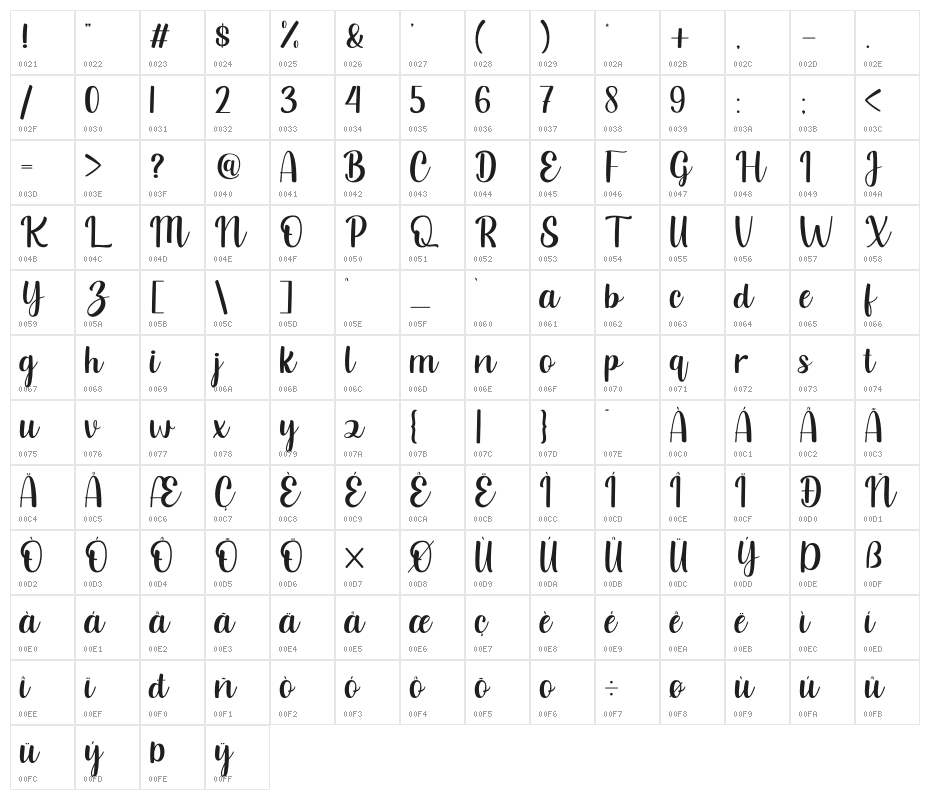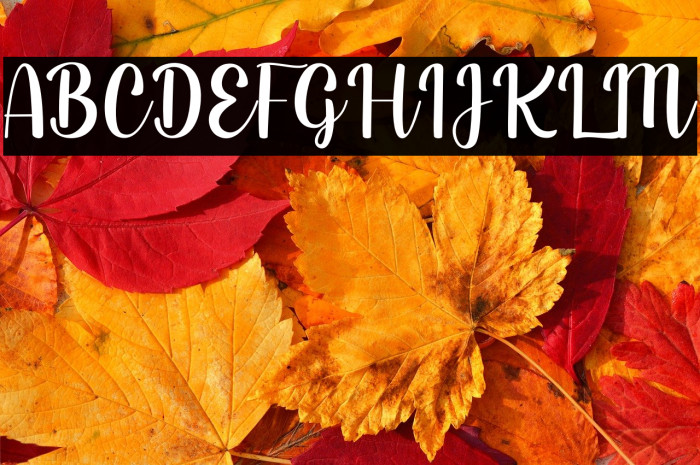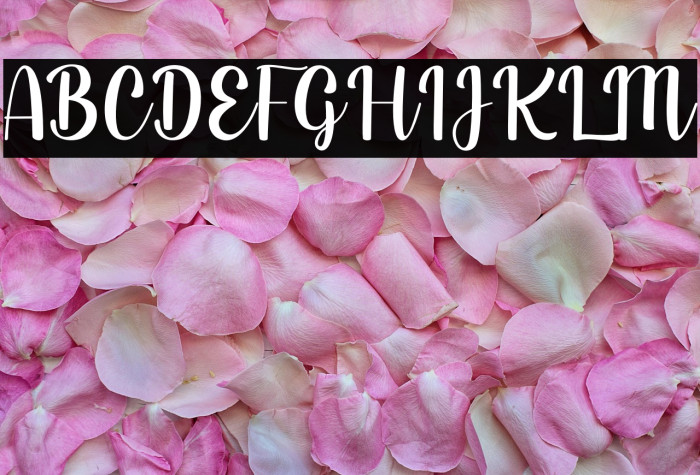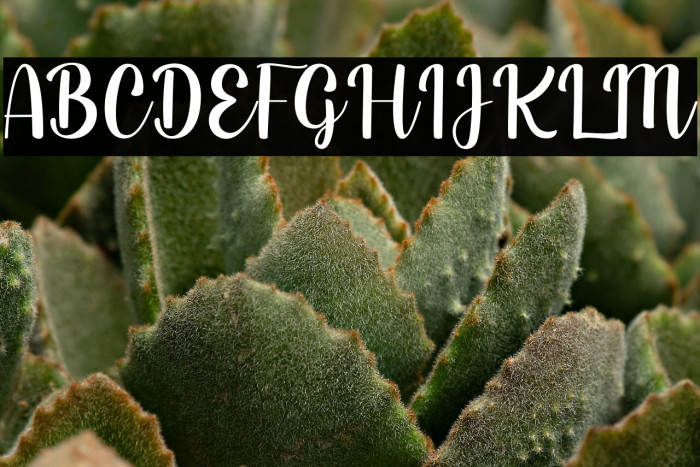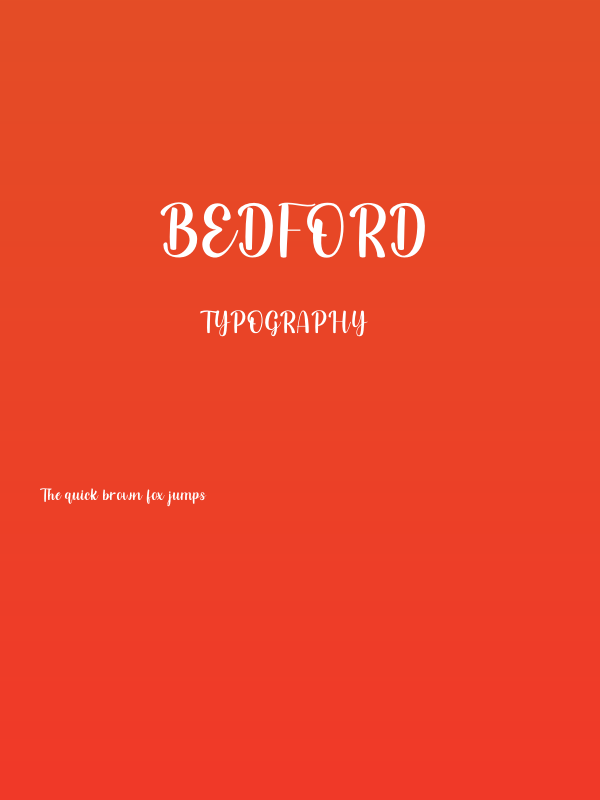
Bedford Font
Bedford Description
This font features a playful and elegant script style with a handwritten appearance. The uppercase letters are bold and flowing, with a consistent stroke width that adds to its readability. The lowercase letters maintain the same fluidity, with some characters extending slightly below the baseline, enhancing its dynamic look. Numbers are clear and legible, matching the overall style of the alphabet. Special characters are well-integrated, maintaining the font's cohesive aesthetic. This font is perfect for projects that require a personal touch, combining elegance with a modern flair.
| Proposed Projects | Ideal for wedding invitations, greeting cards, branding, and social media graphics. |